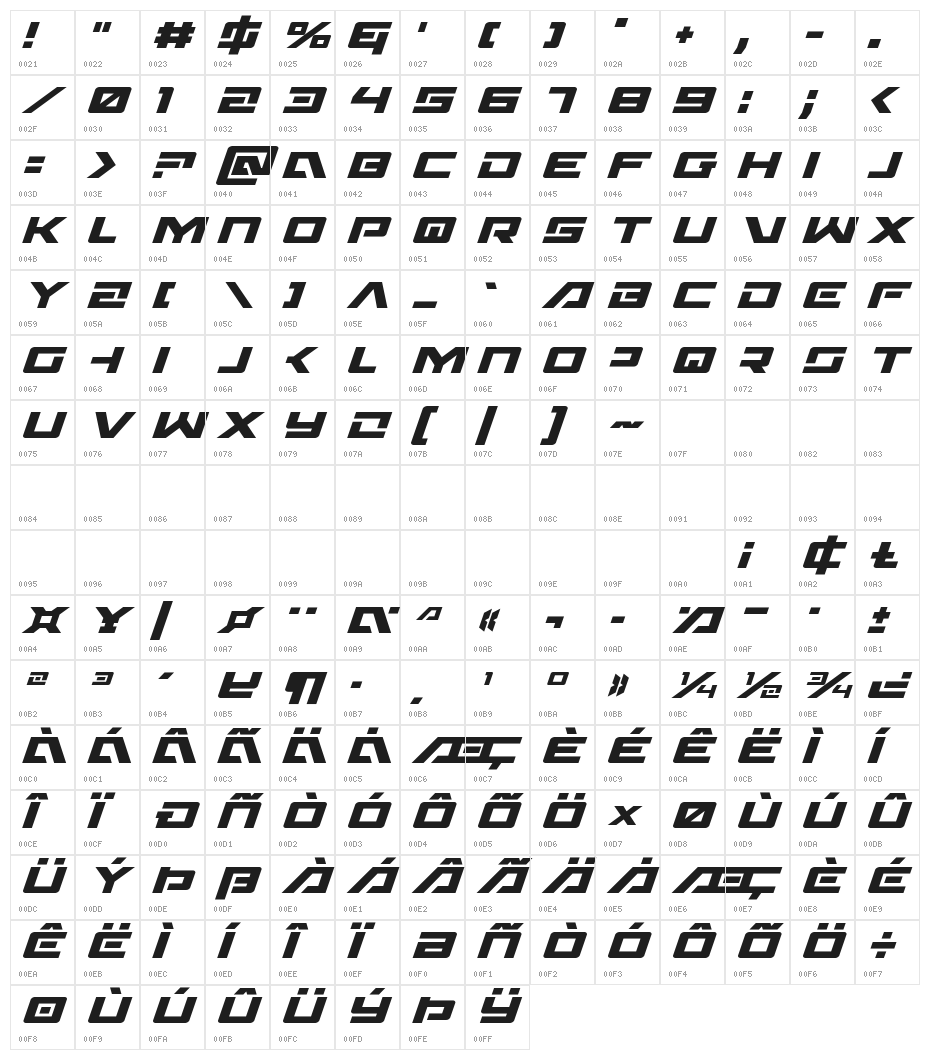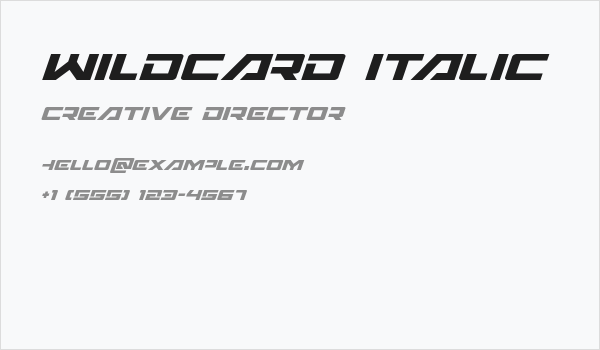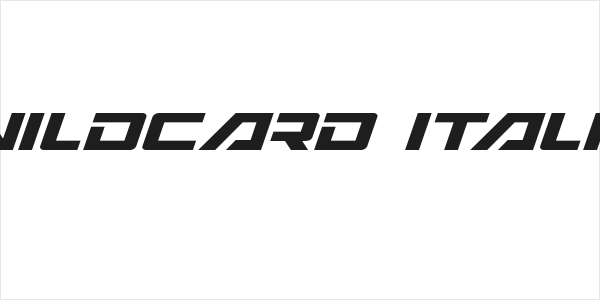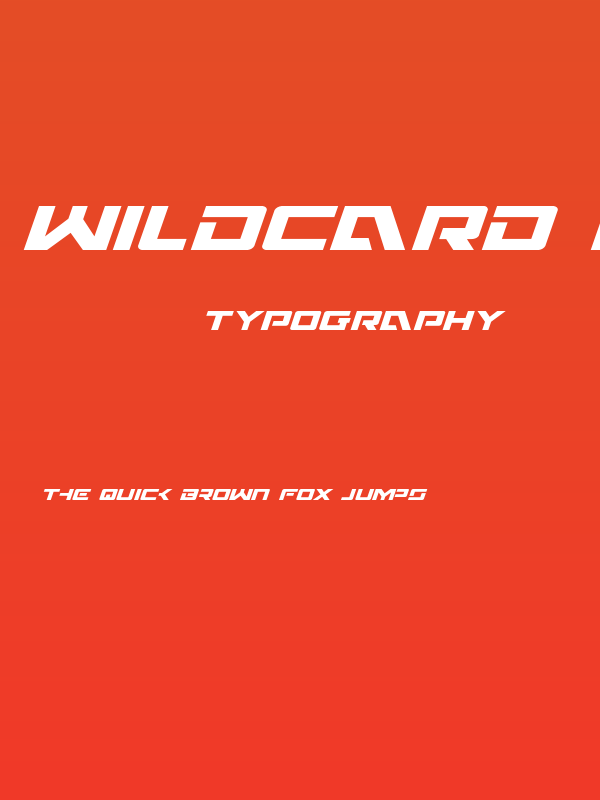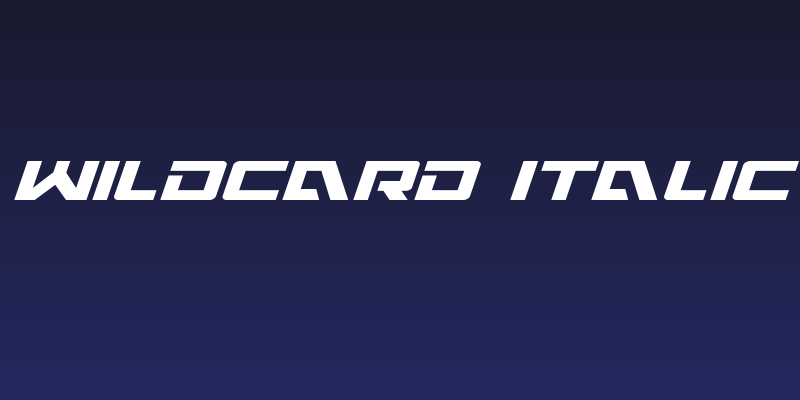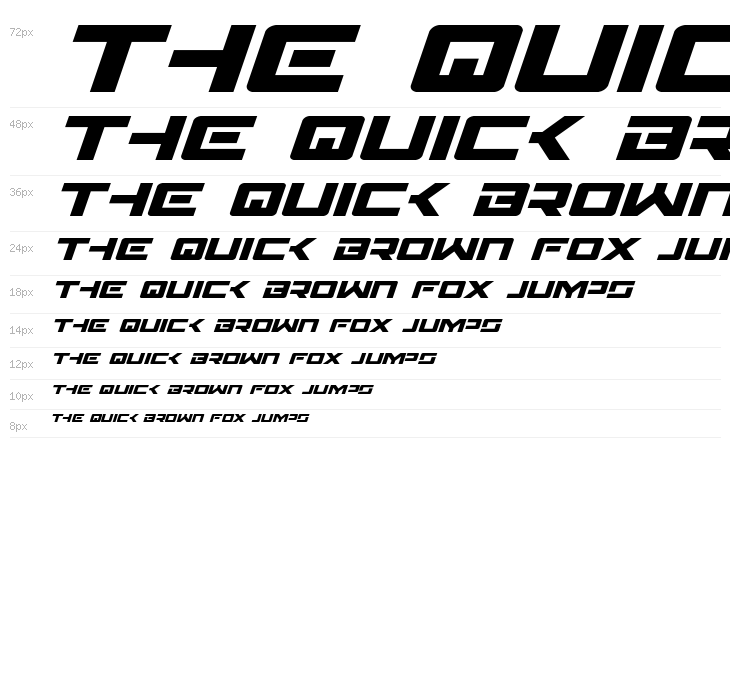
Wildcard Italic Font
Wildcard Italic Description
This font features a bold, italicized style with a futuristic and dynamic appearance. The characters are angular and geometric, giving them a sharp, cutting-edge look. The uppercase letters are particularly striking, with unique slants and cuts that add to the font's modern aesthetic. The numbers and special characters maintain this theme, ensuring consistency across all glyphs. The overall design is sleek and powerful, making it ideal for projects that require a strong visual impact.
WILDCARD-ITALIC UPPERCASE
WILDCARD-ITALIC LOWERCASE
WILDCARD-ITALIC OTHER CHARS
| Proposed Projects | Ideal for technology branding, sports team logos, video game titles, and sci-fi movie posters. |